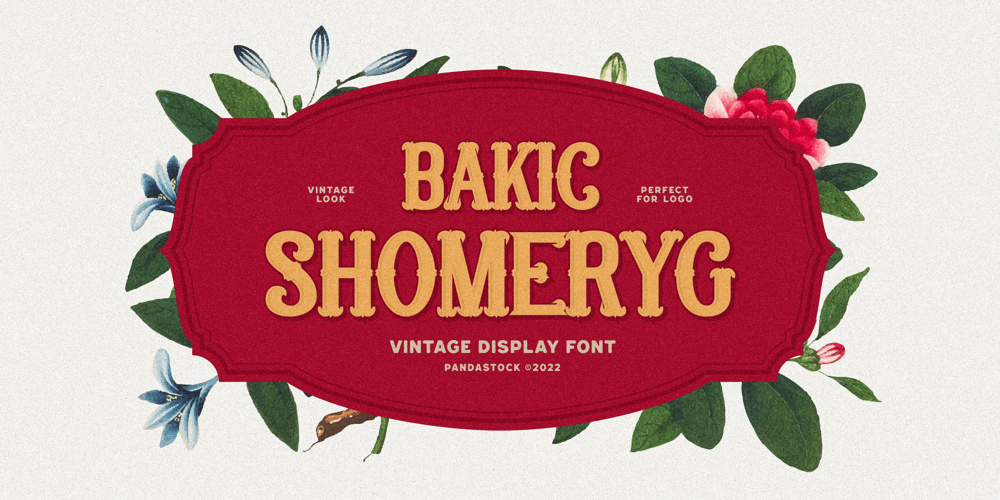
Bakic Shomeryg Font Family was designed by Aulia Savira Putri and published by Imoodev. Bakic Shomeryg contains 1 styles and family package options. Bakic Shomeryg is vintage typography, this typeface has smooth curves and a visual style a can embodies charm and elegance in every lettering, making your work look stunning and attractive.A versatile font that works in both large and small sizes, suitable for a wide variety of projects such as a display for headings, logos, invitations, branding, magazine, photography, card, product packaging, product mockup, mugs, posters, labels, signatures, editorials, art deco, any type of advertising purpose.